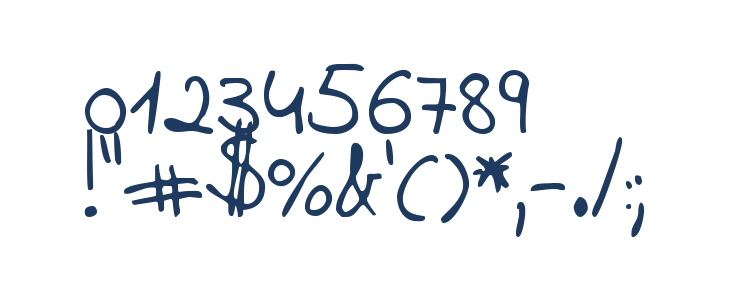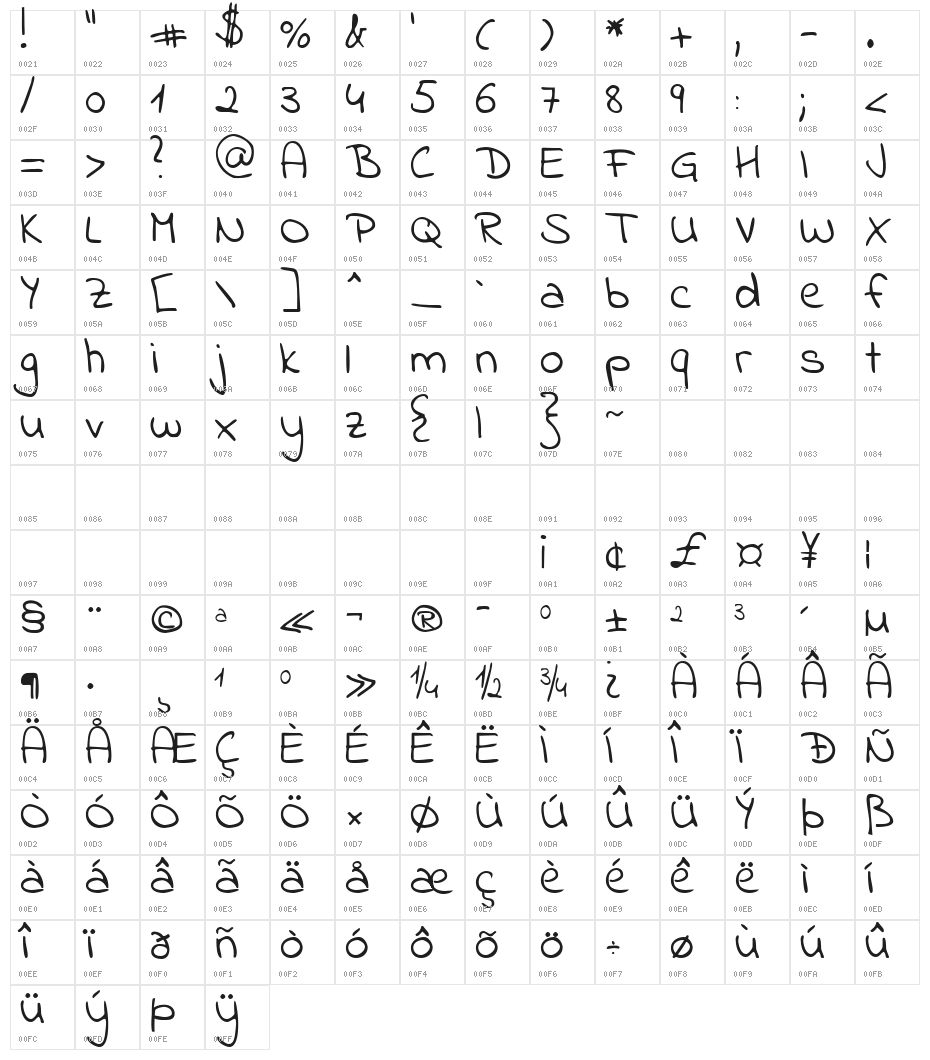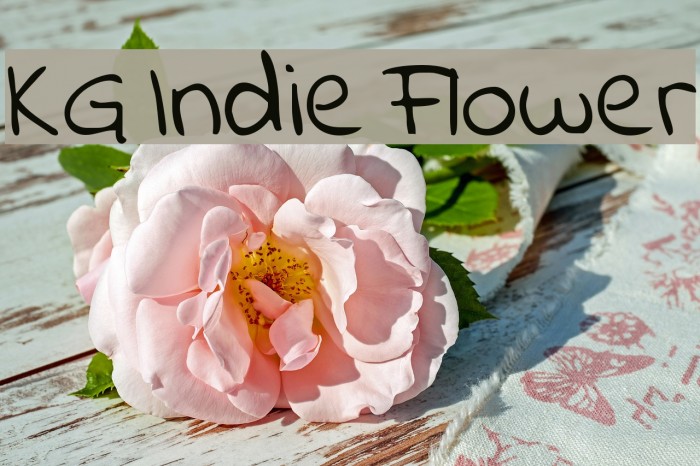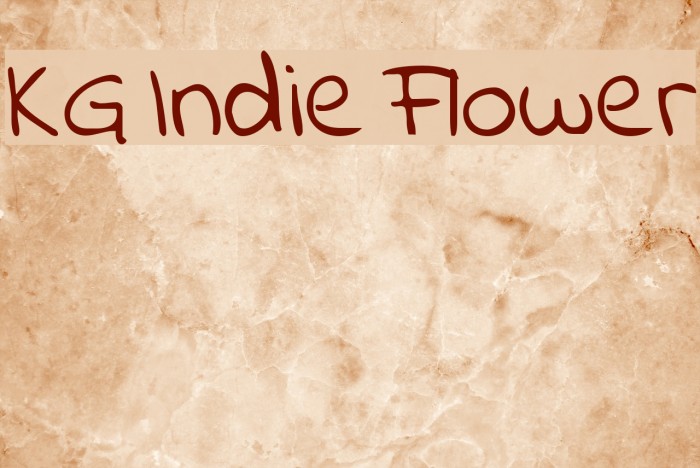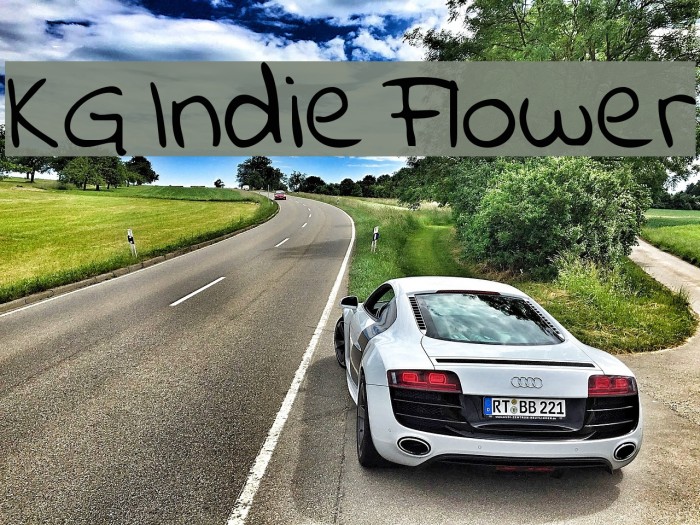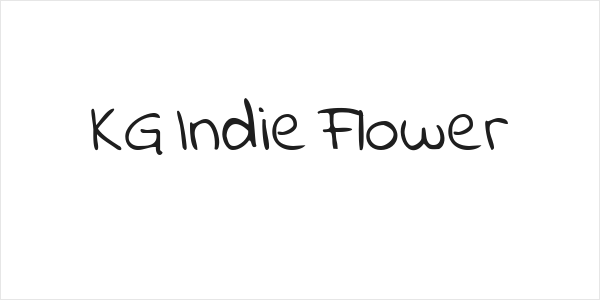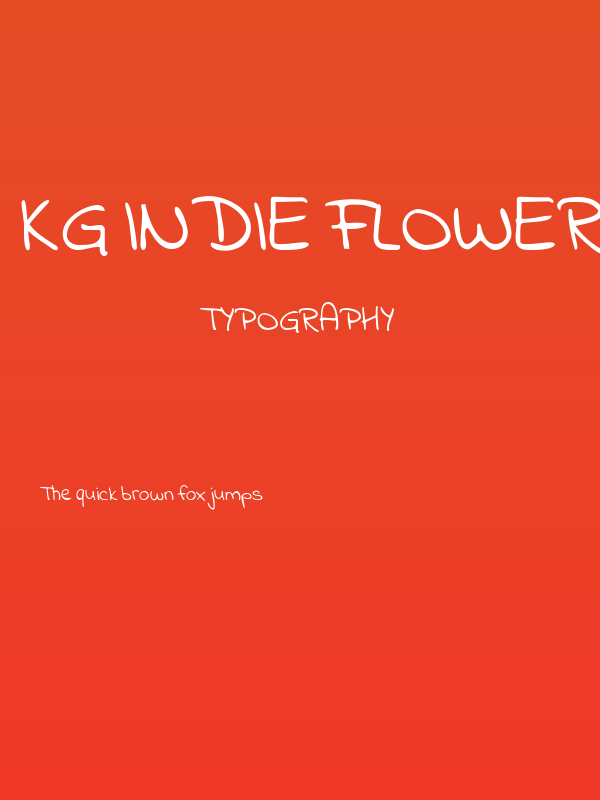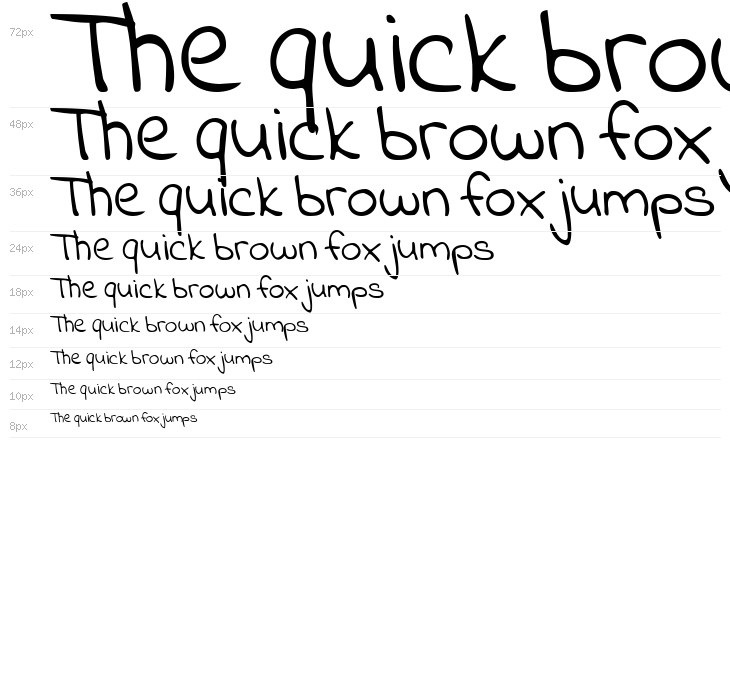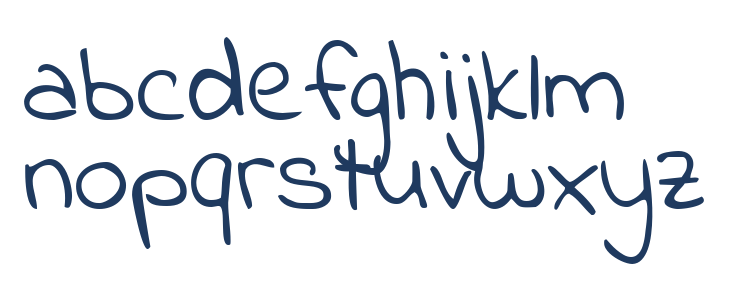
KG Indie Flower Font
KG Indie Flower Description
This playful and casual font exudes a handwritten charm, reminiscent of a personal note or doodle. The letters are slightly irregular, giving it an authentic, informal feel. Each character flows smoothly into the next, maintaining a consistent stroke width throughout. The rounded edges and slight slant add to its approachable and friendly appearance. It captures a sense of spontaneity and creativity, making it ideal for projects that require a personal touch. The numbers and special characters maintain the same whimsical style, ensuring a cohesive look across all text elements.
| Proposed Projects | Perfect for greeting cards, personal blogs, children's books, and creative projects that require a touch of whimsy. |